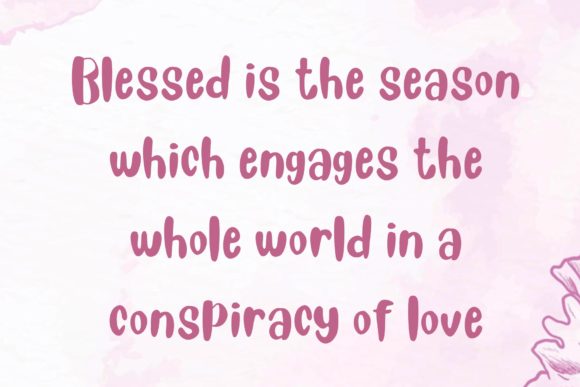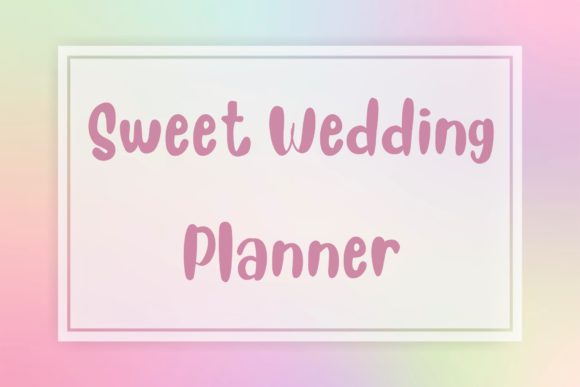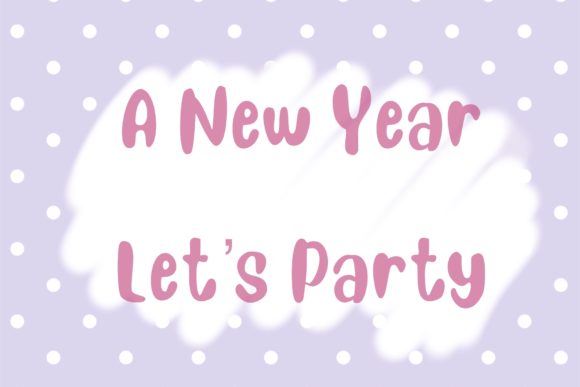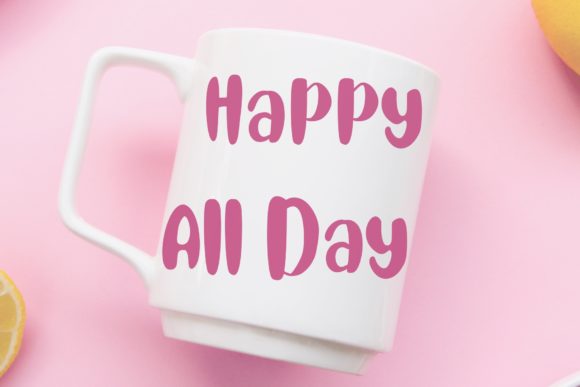
Raspberry Font
About Raspberry Font
Raspberry is a sweet and friendly handwritten font. Its natural and unique style makes it incredibly fitting to a large pool of designs.